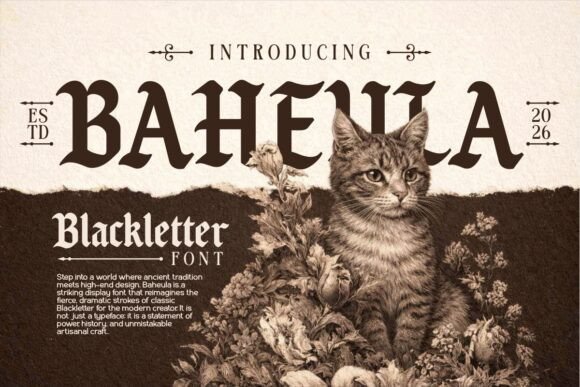
Step Into a World of Timeless Craftsmanship with the Baheula Font
In today’s fast-paced digital world, finding a font that connects with history and exudes character can be challenging. However, for those seeking a touch of vintage charm and authority in their design work, the Baheula font offers a unique solution. This striking blackletter display face is more than just a typeface—it's an embodiment of timeless craftsmanship, medieval calligraphy, and old-world elegance.
What Makes the Baheula Font Unique?
The Baheula font stands out due to its bold, angular strokes and intricate detailing, which reflect the beauty of traditional Gothic script. Blackletter fonts, also known as Gothic or Old English scripts, have long been associated with historical documents, religious texts, and heraldic symbols. The Baheula font takes these classic elements and reinterprets them with a modern edge, making it both visually appealing and versatile.
Its strong vertical lines and sharp serifs give it a commanding presence on the page, while the ornate flourishes add a sense of artistry and sophistication. Unlike many modern sans-serif fonts, which prioritize readability over style, the Baheula font balances both aspects effectively when used appropriately.
Historical Roots and Modern Appeal
Blackletter fonts originated in the Middle Ages and were widely used in Europe for centuries. They were favored by scribes for their ability to convey formality and gravitas. With the rise of the printing press and the move toward more legible styles, blackletter gradually faded from everyday use. Yet, it remains popular in niche industries and creative applications where heritage and tradition play a key role.
The Baheula font honors this legacy while adapting to contemporary design needs. It brings a fresh perspective to the age-old blackletter style, allowing designers to create compelling visuals that feel rooted in the past yet relevant to the present.
Practical Uses of the Baheula Font
Thanks to its distinctive appearance, the Baheula font finds itself at home in a variety of design contexts. It’s particularly well-suited for industries that rely on a strong visual identity tied to history, culture, or tradition.
- Breweries: Many craft breweries use the Baheula font in their branding to evoke a rustic, artisanal feel. Think of labels that resemble ancient manuscripts or logos inspired by medieval tavern signs.
- Tattoo Studios: The font's edgy and dramatic look makes it perfect for tattoo shop logos and promotional materials. Its boldness aligns well with the aesthetic of body art and personal expression.
- Historical Branding: Whether you're designing a museum exhibit, a heritage product line, or a themed restaurant, the Baheula font adds an air of authenticity and nostalgia.
- Logotypes and Posters: The font commands attention when used in logotypes or large-format posters. It works especially well for events like medieval fairs, book launches, or fantasy-themed promotions.
- Book Covers: For literary projects such as fantasy novels, historical fiction, or poetry collections, the Baheula font helps set the tone before readers even open the book.
Pairing Baheula with Other Design Elements
To fully harness the potential of the Baheula font, consider how it interacts with other design components. Pairing it with aged paper textures, sepia-toned backgrounds, or distressed effects enhances its vintage appeal. Additionally, using a classic serif font for sub-headings creates a harmonious contrast between the ornate display type and more readable supporting text.
This combination allows the Baheula font to shine as the focal point while ensuring the rest of your layout remains clear and accessible. It’s all about balance—using the right tools to create a cohesive and immersive visual experience.
Why Choose Baheula Over Other Fonts?
With so many fonts available today, you might wonder why the Baheula font deserves special attention. Here are several reasons why it could be the ideal choice for your next project:
- Distinctive Visual Identity: In a sea of similar designs, standing out is essential. The Baheula font provides a unique visual signature that immediately grabs attention and conveys a sense of individuality.
- Emotional Resonance: Fonts can influence how people feel about a brand or message. The Baheula font evokes emotions tied to tradition, strength, and timelessness, which can be powerful in storytelling and marketing.
- Versatility in Application: While it may seem best suited for specific niches, the Baheula font can be creatively adapted for broader use. From website headers to packaging designs, it adds depth and character to any medium.
- Cultural and Historical Relevance: The font serves as a bridge between the past and present, offering designers a way to pay homage to history while staying current and relevant.
Common Misconceptions About Blackletter Fonts
Despite its popularity in certain fields, the Baheula font—and blackletter in general—often faces criticism for being difficult to read or outdated. These misconceptions, however, fail to recognize the nuanced ways in which blackletter can be applied.
It's important to note that blackletter fonts are typically reserved for display purposes rather than body text. When used correctly, they don’t hinder readability but instead enhance the overall design by setting the tone and mood. The key is knowing when and where to apply them effectively.
Baheula in Modern Life and Business
In an era dominated by minimalist design trends, the Baheula font offers a refreshing alternative that appeals to those who value artistry and depth. Businesses across various sectors are rediscovering the power of typographic storytelling, and the Baheula font plays a crucial role in this movement.
For example, in the brewing industry, brands use Baheula to highlight the craftsmanship behind each batch of beer. A label featuring this font can instantly communicate quality, heritage, and a connection to tradition. Similarly, in the education sector, institutions may use it for special event invitations, alumni publications, or historical exhibits to create a sense of pride and continuity.
Even in technology and startups, there’s room for the Baheula font. Some companies adopt it for limited-edition products, branded merchandise, or event banners to create memorable experiences and foster emotional connections with their audience.
Design Tips for Using the Baheula Font
To ensure your use of the Baheula font is effective and aesthetically pleasing, here are some practical tips:
- Use Sparingly: Because of its bold nature, it’s best to use the Baheula font for headlines, titles, and short phrases rather than long blocks of text.
- Contrast is Key: Pair it with simpler, more legible fonts for body copy. A clean sans-serif or elegant serif font can complement its complexity without competing with it.
- Color Considerations: Stick to muted or earthy tones like deep browns, dark greens, or gold accents to maintain its vintage vibe. Bright colors can clash with the font’s traditional aesthetic.
- Experiment with Effects: Subtle embossing, shadowing, or ink bleed effects can enhance the Baheula font’s handcrafted feel, especially in print media.
How to Access and Use the Baheula Font
If you’re interested in incorporating the Baheula font into your design work, it’s usually available through reputable font foundries and marketplaces like Adobe Fonts, Google Fonts, or Creative Market. Always check licensing terms before downloading or embedding the font into a project, especially if it will be used commercially.
Once installed, the font is easy to use in most design software, including Adobe Photoshop, Illustrator, InDesign, and even Microsoft Word or PowerPoint. For web developers, ensure the font is properly embedded using WOFF or TTF formats and optimized for cross-browser compatibility.
Real-World Examples of the Baheula Font in Action
Let’s take a closer look at how the Baheula font has been used in real-life scenarios to better understand its impact:
- A local brewery uses the Baheula font on its bottle labels and taproom signage to emphasize its artisanal roots and community-focused values.
- A tattoo artist incorporates the font into her studio logo and social media posts, creating a consistent and memorable brand image that resonates with her target audience.
- A historical society features the font in its newsletter headings and event posters, reinforcing the theme of heritage and cultural preservation.
- An independent publisher selects the Baheula font for the title of a fantasy novel series, enhancing the reader’s anticipation and immersion in the story world.
Building a Broader Understanding of Typography
Fonts like Baheula are part of a larger conversation about typography and its role in communication. While functionality is often the primary concern in modern design, the emotional and cultural impact of typography shouldn’t be overlooked.
Understanding different font families—serif, sans-serif, script, and display—helps designers make informed choices that align with their goals. The Baheula font, for instance, belongs to the blackletter category, which is best known for its ornate and structured appearance. By studying its characteristics and learning how to pair it with other elements, you can elevate your design projects and create more meaningful visual narratives.
Typography Trends and the Future of Vintage Styles
While minimalism continues to dominate much of the design landscape, there’s a growing appreciation for vintage aesthetics and handcrafted elements. This trend reflects a desire for authenticity and a break from the sterile perfection of modern design.
Fonts like Baheula are not just nostalgic throwbacks—they represent a shift toward more expressive and personality-driven typography. As audiences seek deeper connections with brands and content, fonts that tell a story become increasingly valuable. This resurgence of interest in vintage styles shows no signs of slowing down, making the Baheula font a timely and relevant choice for forward-thinking designers.
Conclusion: Embracing Timeless Design
The Baheula font is more than just a decorative choice; it’s a symbol of craftsmanship, history, and creativity. Whether you’re designing a logo for a new brewery, crafting a poster for a fantasy convention, or revamping a historical publication, this font can help you achieve a look that feels both classic and contemporary.
By understanding its purpose, significance, and proper application, you can unlock the full potential of the Baheula font in your work. Remember, the best designs are those that resonate emotionally and tell a story—something the Baheula font does exceptionally well.
Ready to explore the possibilities? Step into a world where every letter carries weight and meaning, and let the Baheula font bring your vision to life with its timeless elegance.